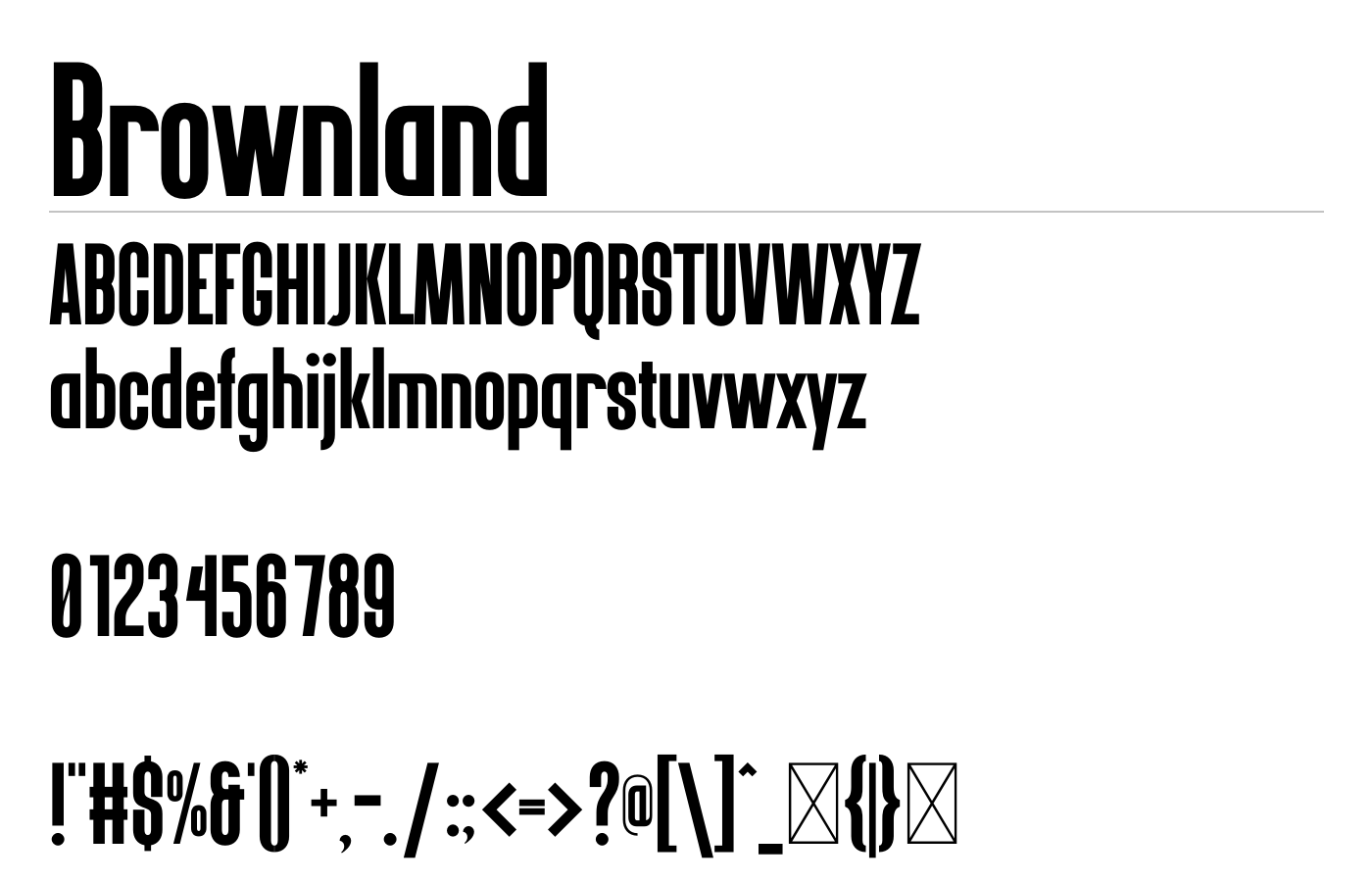
Brownland is a bold, condensed sans-serif font with a modern and geometric feel. Its tall, narrow letterforms and high x-height create a strong, impactful presence that works well for headlines, logos, and branding where a sleek and contemporary look is desired. This font’s clean lines and striking proportions make it ideal for fashion, editorial, and urban-themed designs that need a confident and stylish voice.
Brownland Font
About Brownland Font
| Font family | Brownland Font |
| Designer | A Shiddiq |